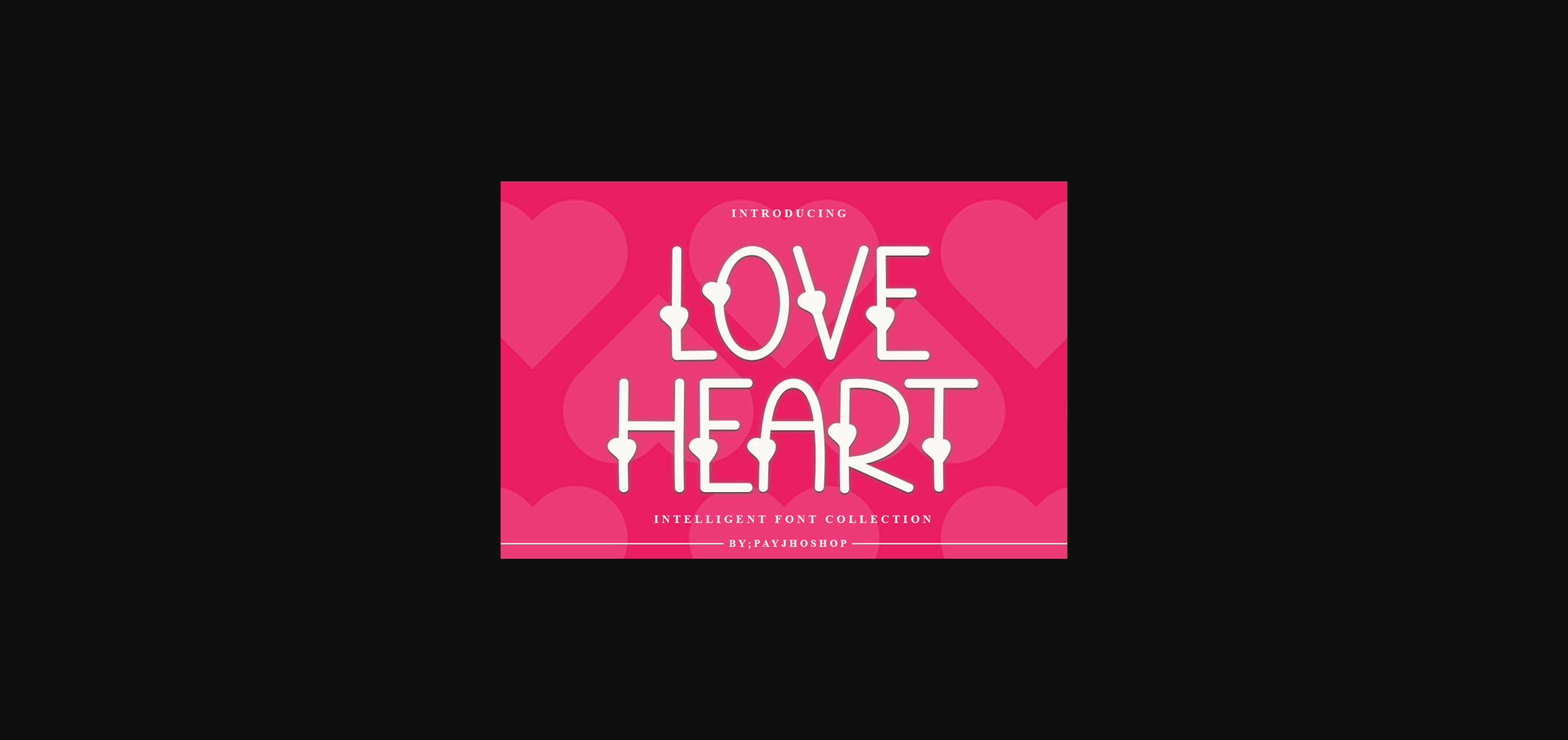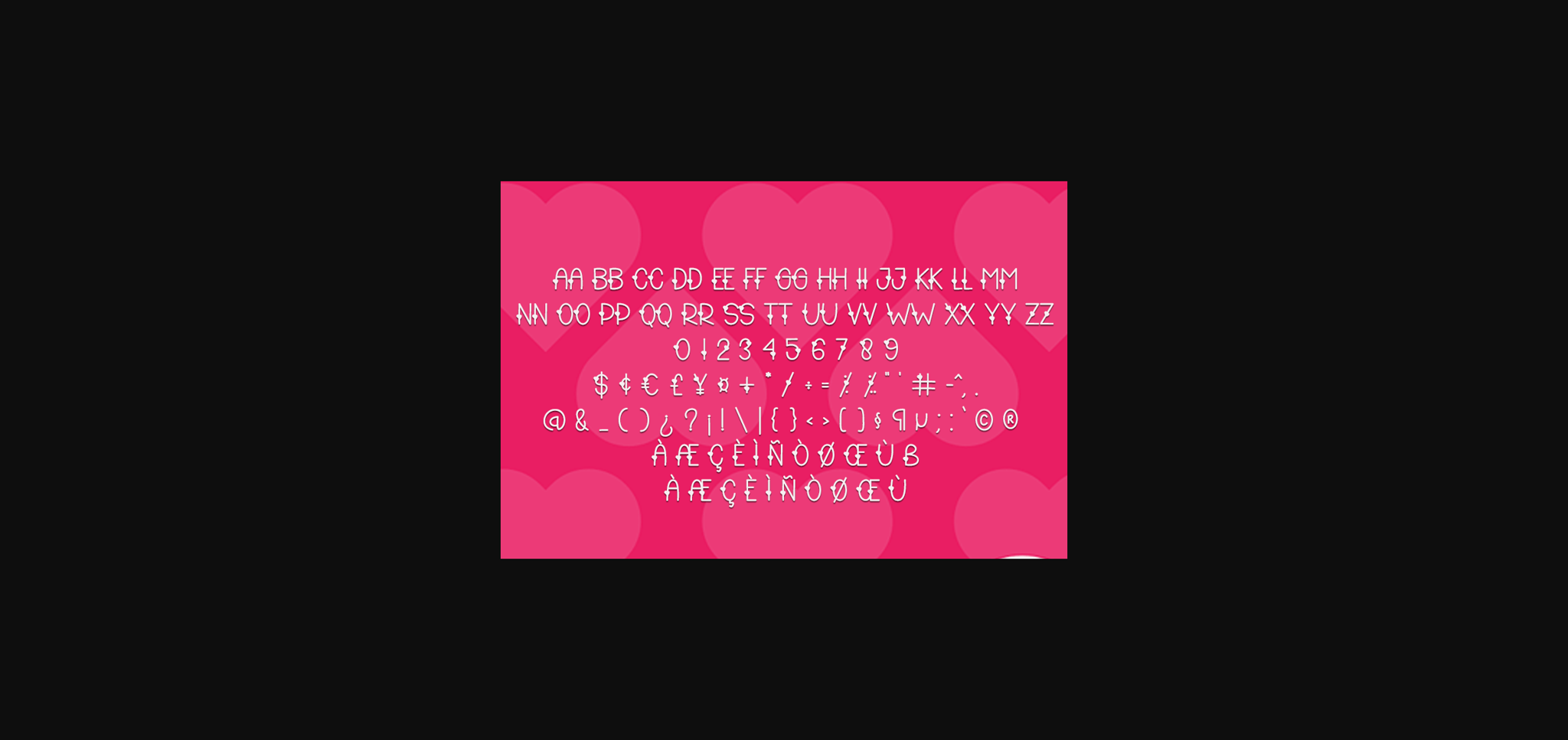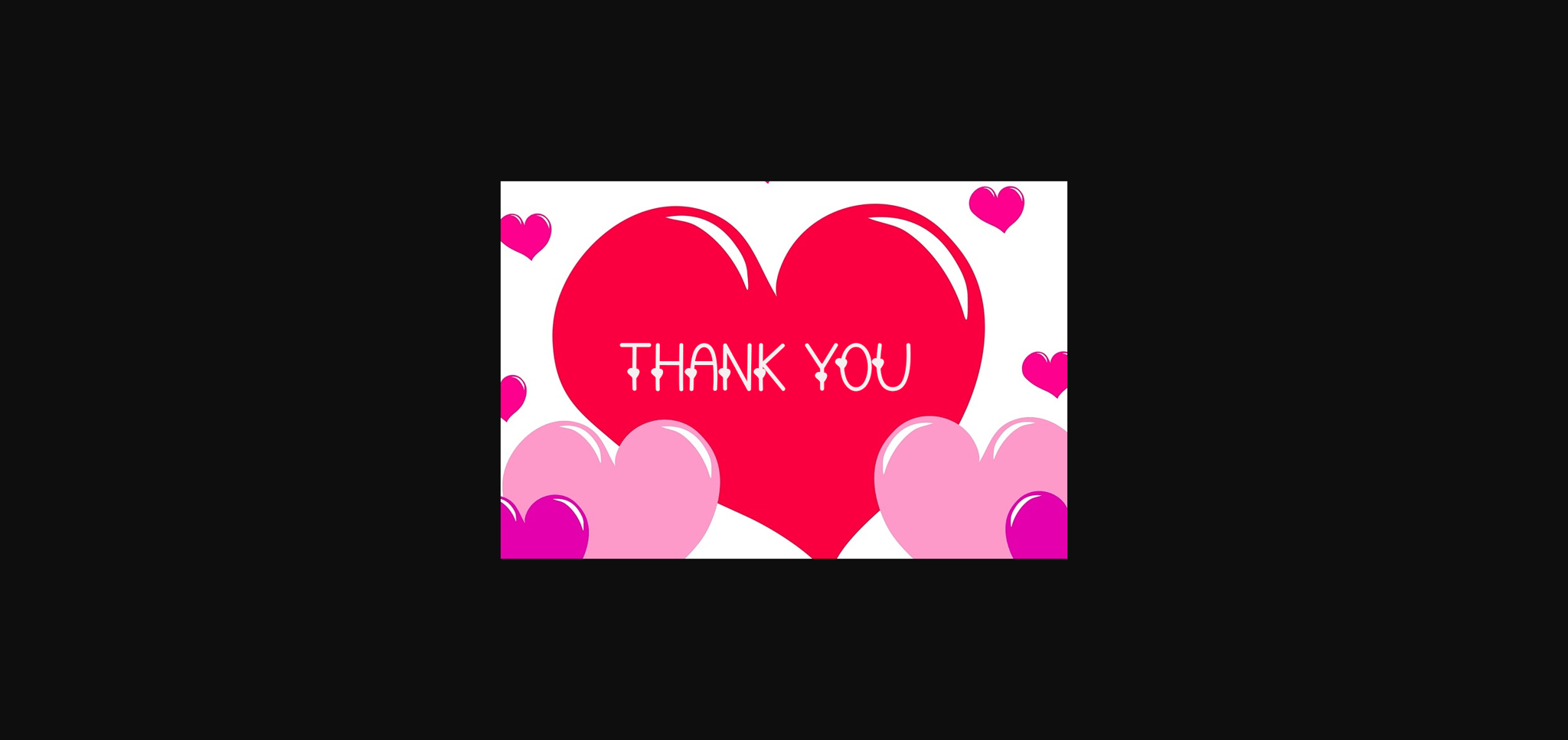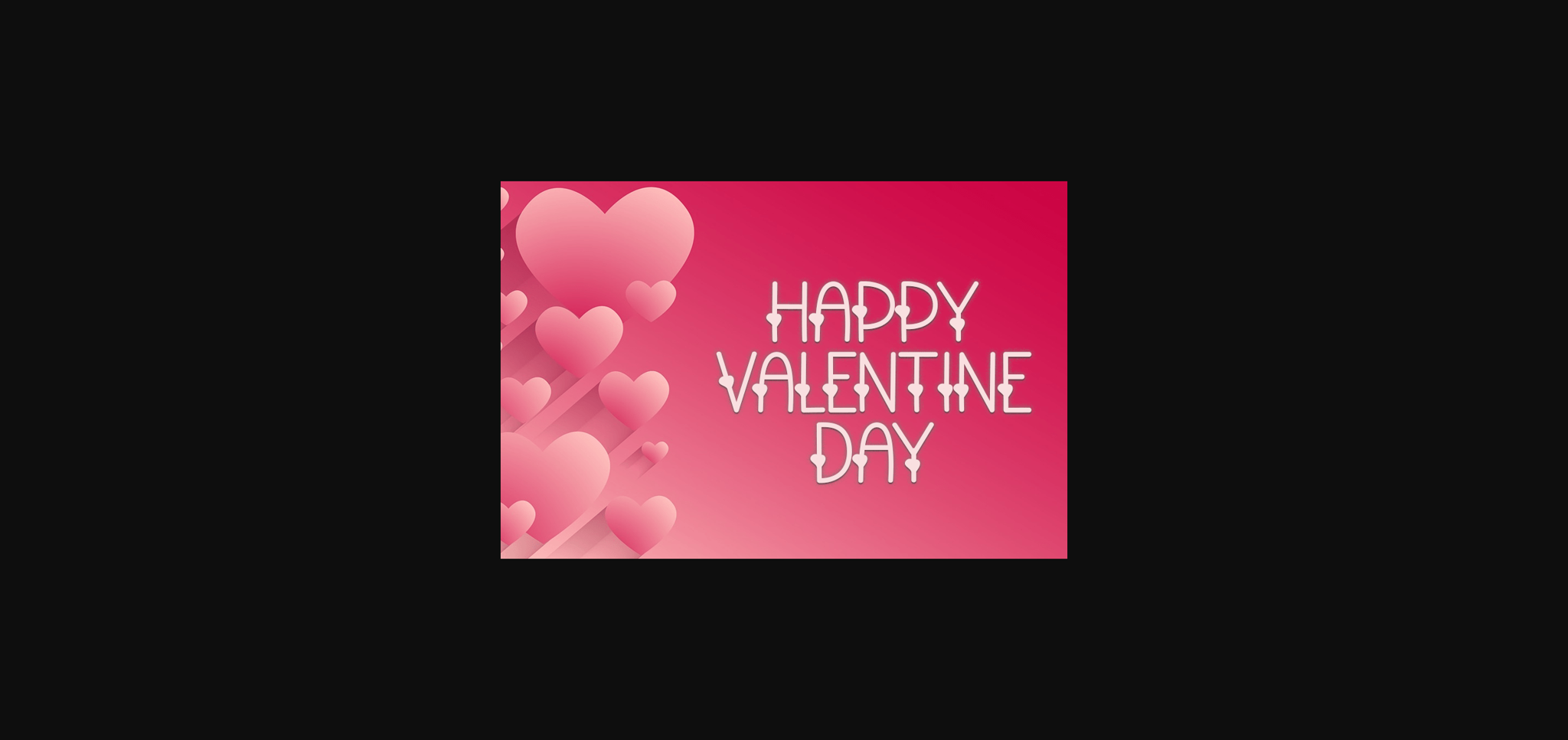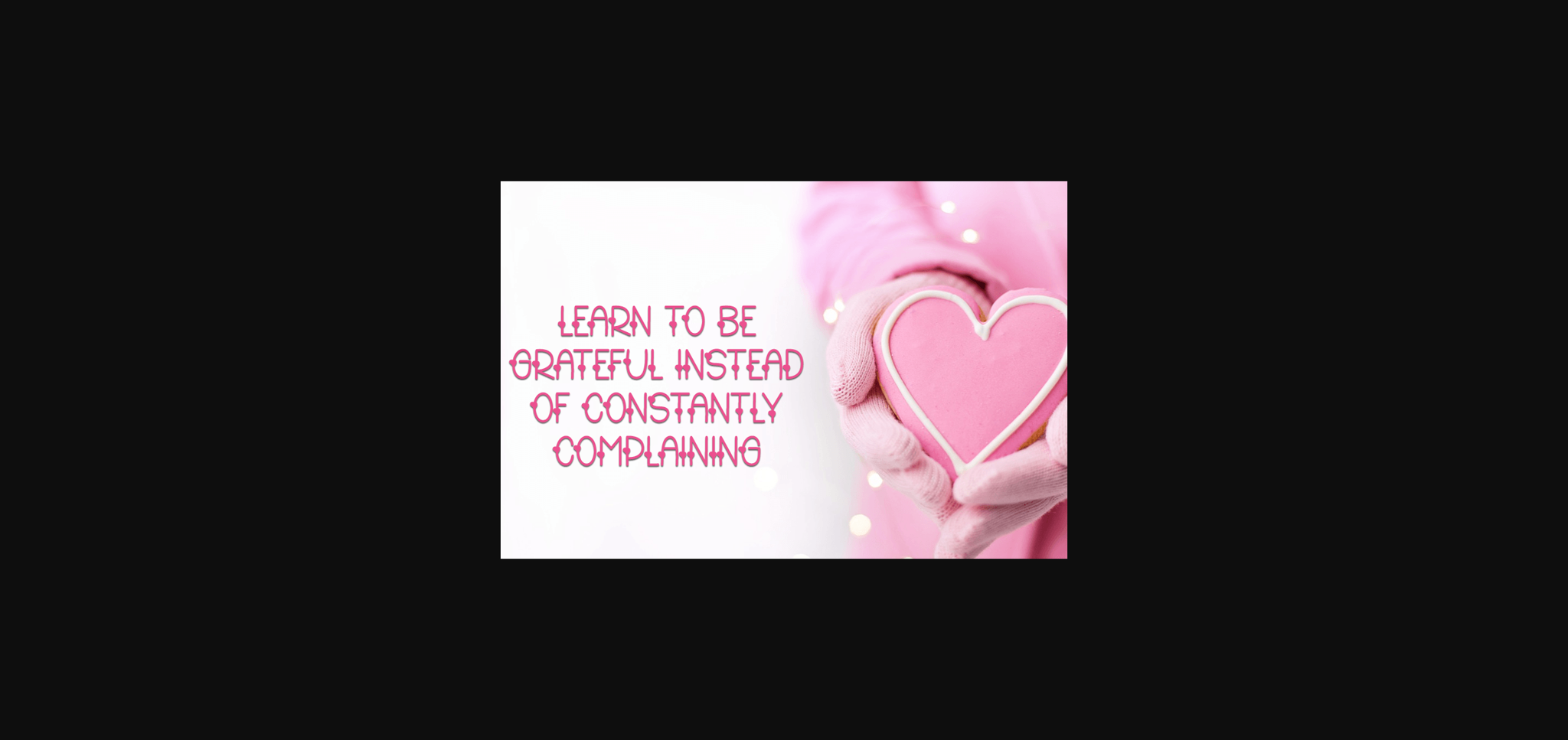
About Love Heart Font
Love Heart is a sweet and adorable sans serif font. Whether you’re using it for crafts, digital design, presentations, or making greeting cards, this font has the potential to become your favorite go-to font, no matter the occasion!